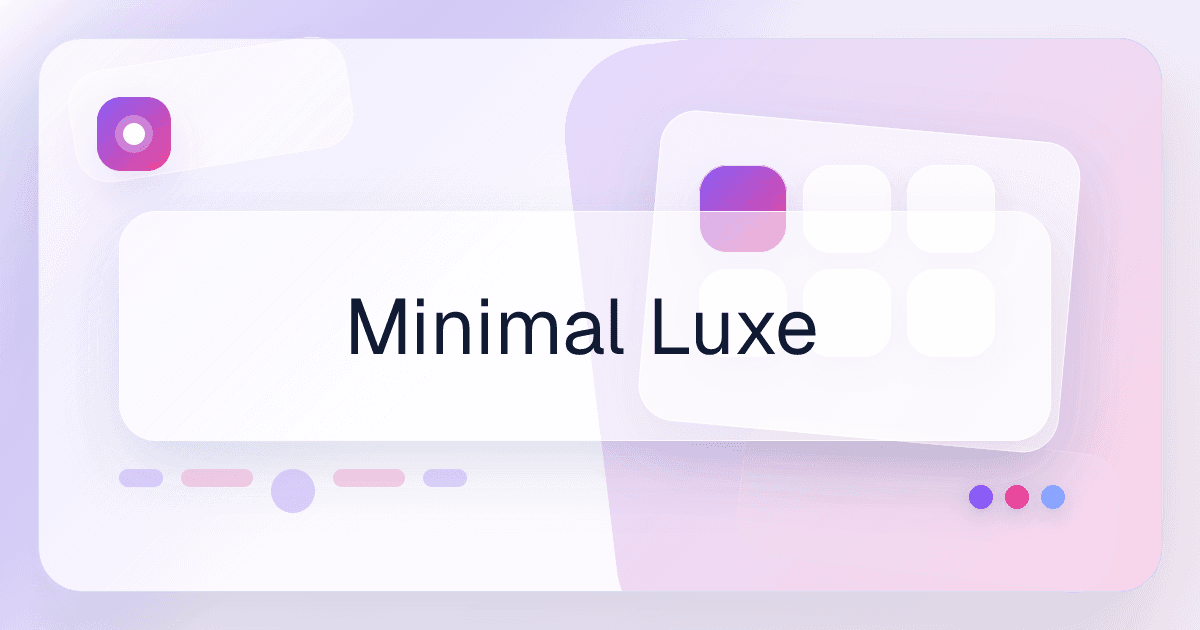
Minimal Luxe Fancy Font Styles
Generate stylish, readable text variants tuned for social creators and instant copy-paste use.
Font pairing: Playfair Display + Manrope
Why people use Minimal Luxe
Generate stylish, readable text variants tuned for social creators and instant copy-paste use.
This style usually fits short bios, captions, usernames, and branded profile text where the visual tone matters as much as the wording.
Best use cases for this style
Minimal Luxe works best when the text is short enough to stay readable after styling. Try it first on display names, short captions, headline phrases, and creator labels.
How to keep it readable
Test this style in the target app before publishing. If it feels too dense, use it on the first line only and keep the rest of the copy cleaner.